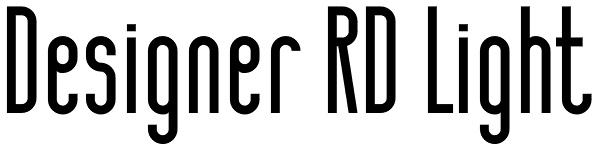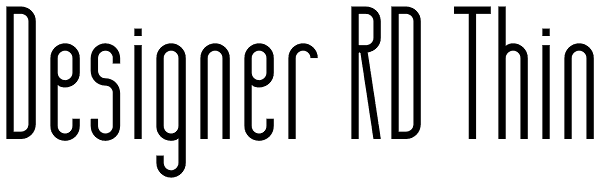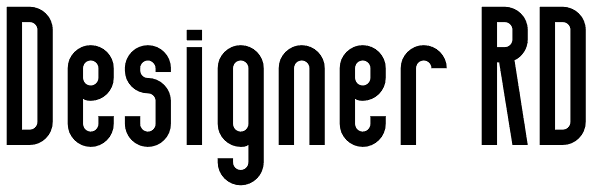
Designer RD
The fonts Why Square, Just Square and DesignerRound, Latin and Cyrillic versions were created during the bombardment of Yugoslavia in 1999. It started when my son Nikola, student of Academy of Applied Arts (at the time) asked me to draw letters from...